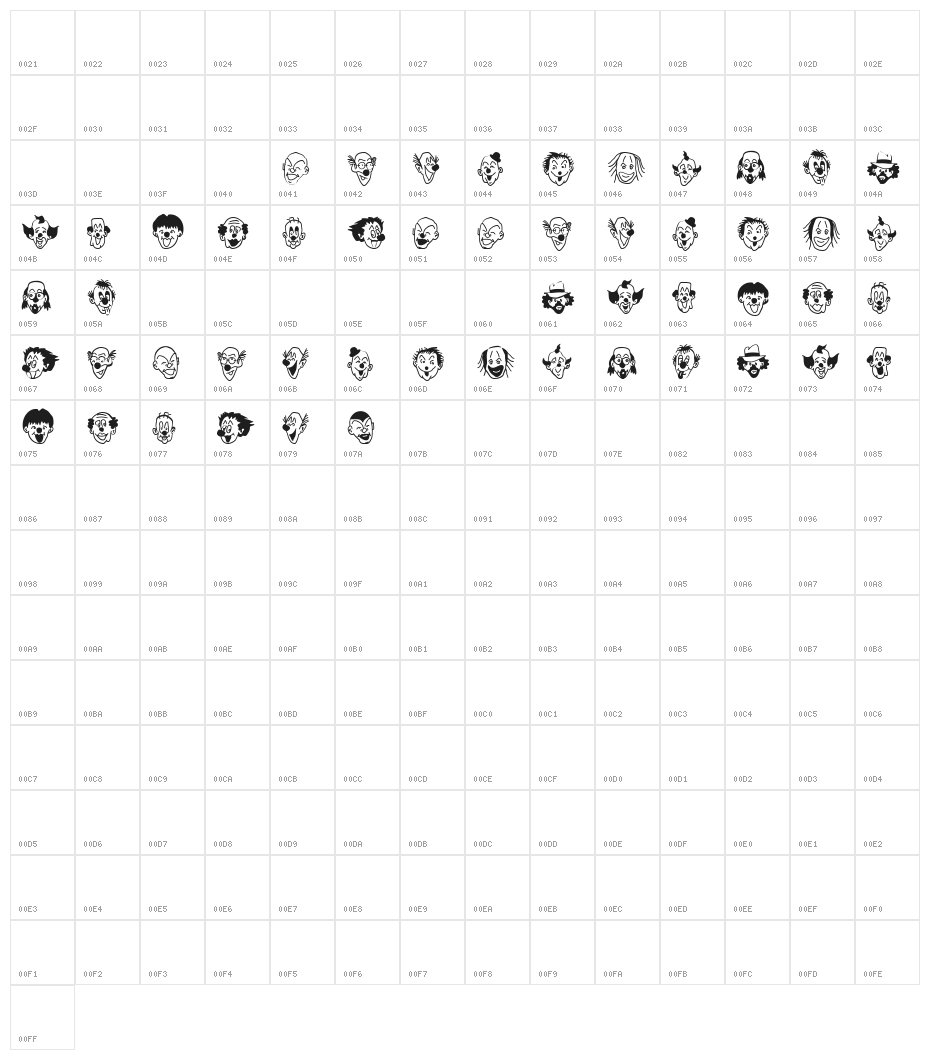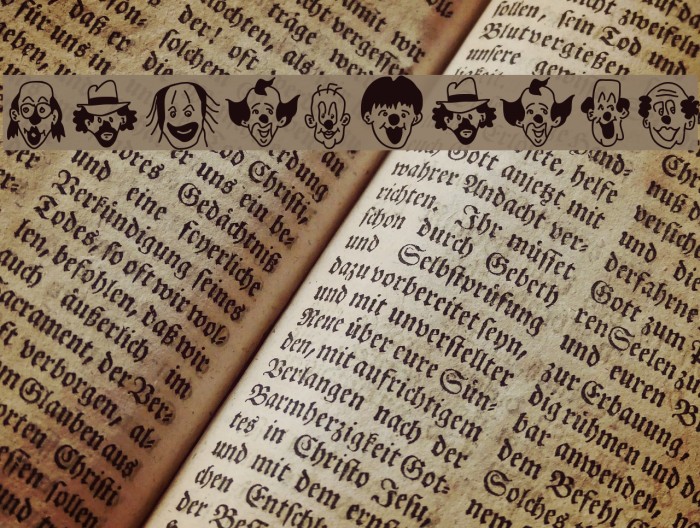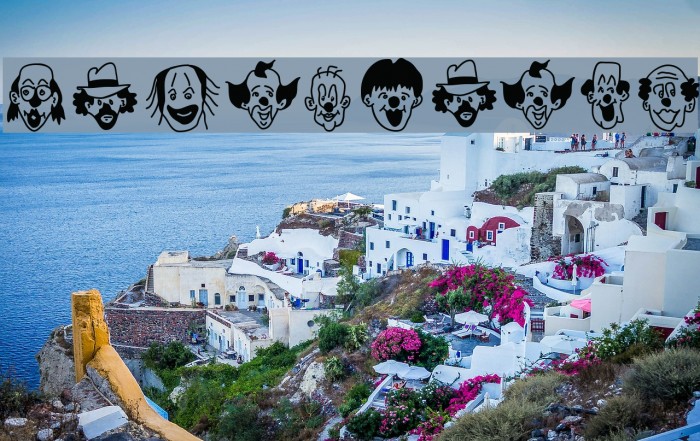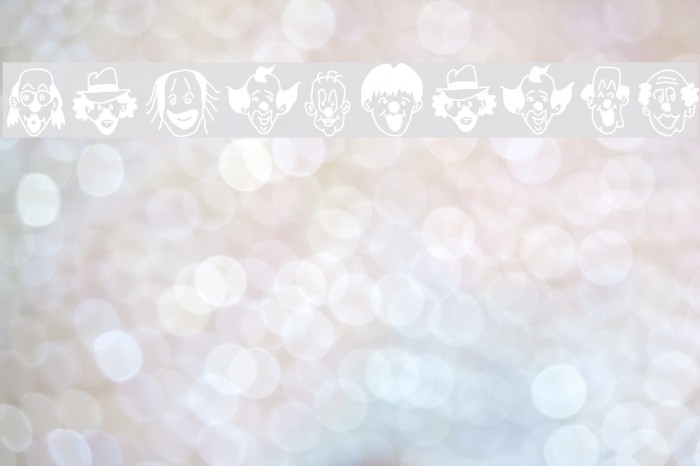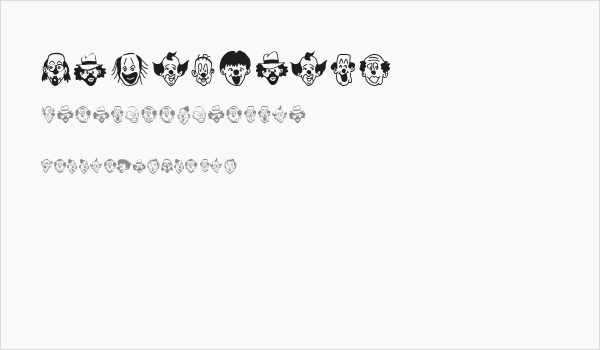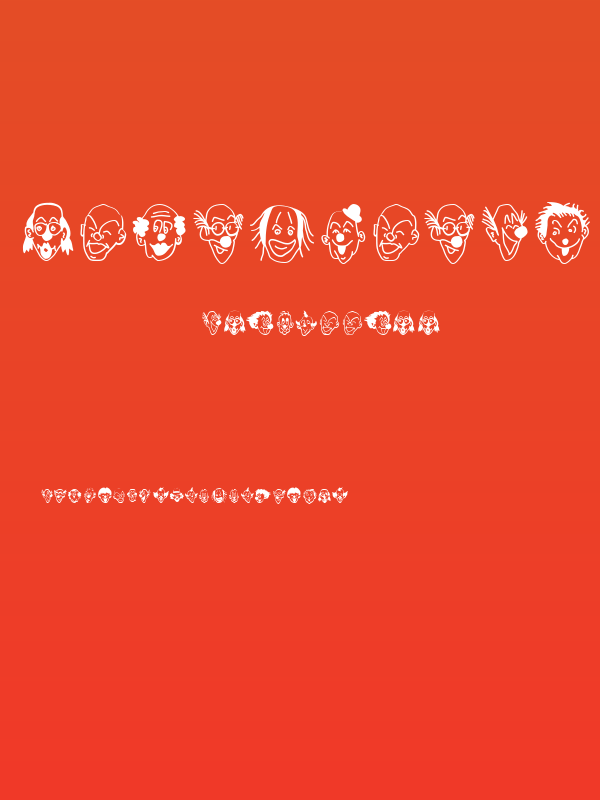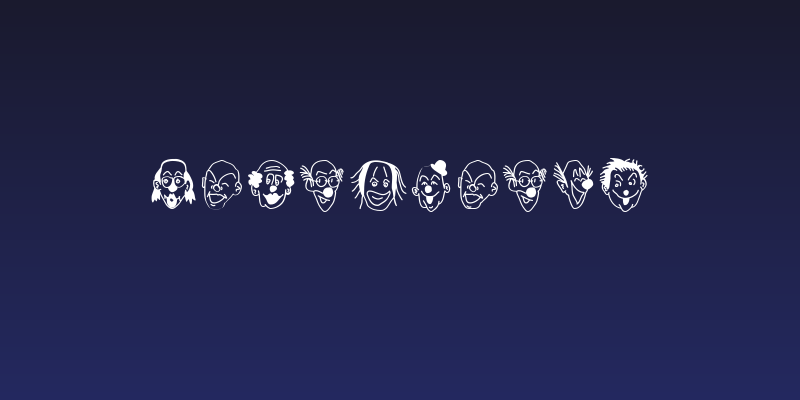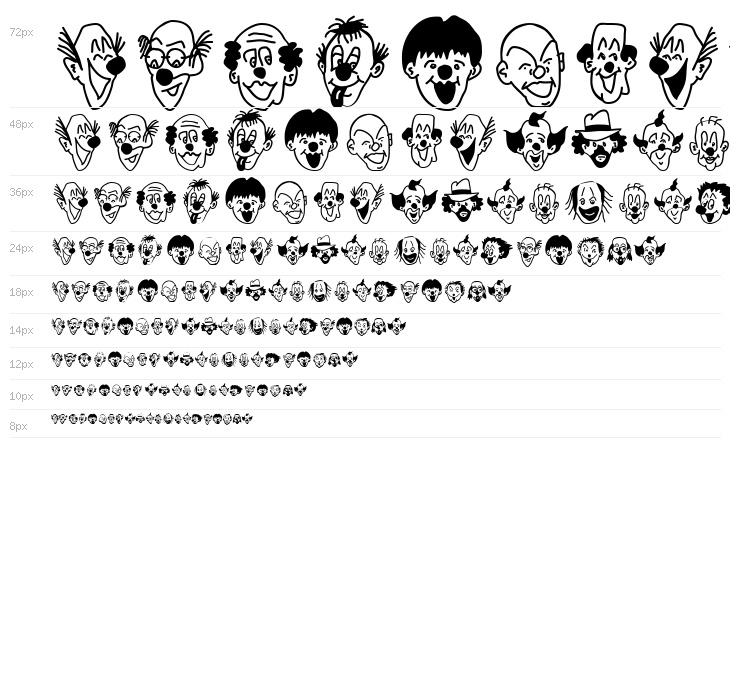
Hanswurste Font
Hanswurste Description
A playful and whimsical display typeface composed entirely of hand-drawn clown faces representing each character, with each glyph featuring unique facial expressions and details. The style is highly illustrative and cartoonish, emphasizing humor and individuality.
Overall StyleDecorative, Whimsical, Playful
Use CaseHeadlines, Posters, Logos, Themed Events
Proposed ProjectsChildren's party invitations, circus posters, playful branding, comic books, novelty merchandise, event flyers.